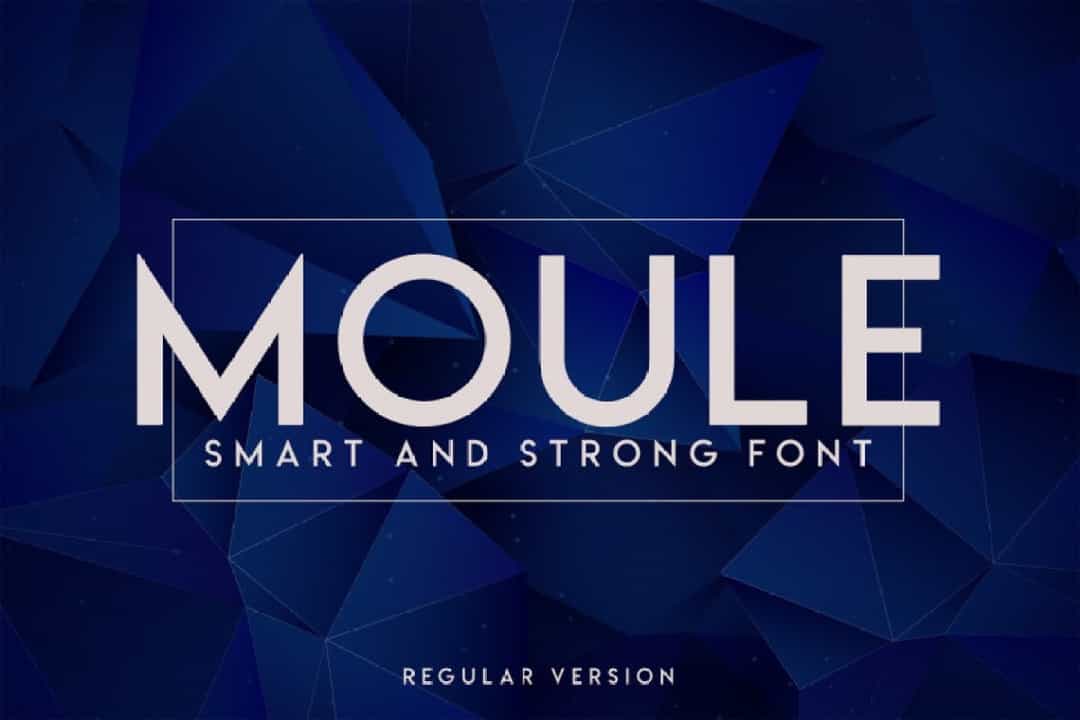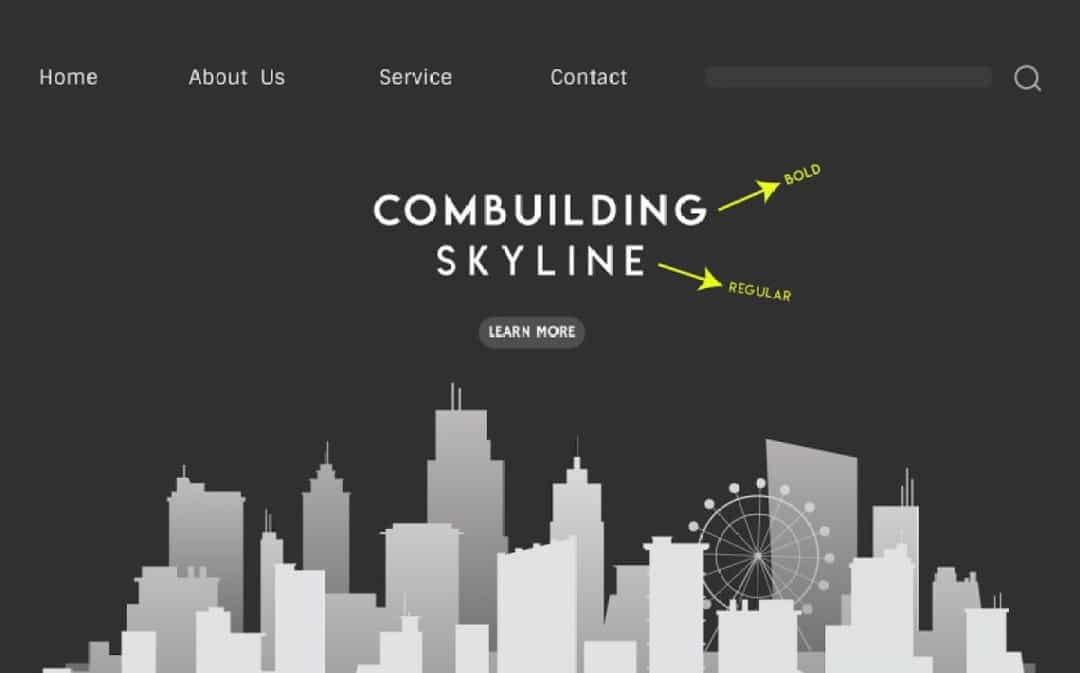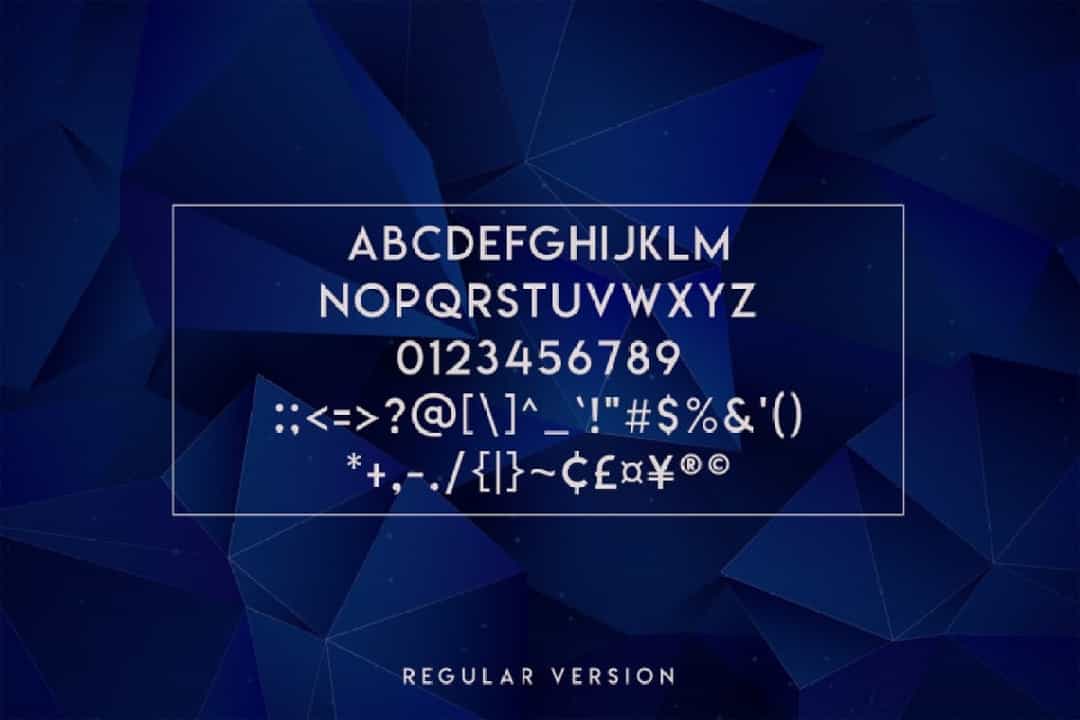
Moule is an eye-catching sans-serif typeface that exudes power and sophistication across any design work, from branding, logos and landing pages to headlines magazines posters or any other use! Perfect for branding logos landing pages headlines magazines posters or more!